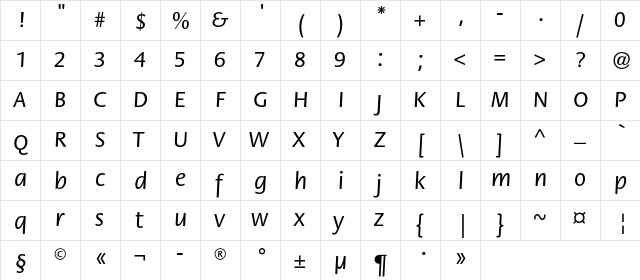
FloraC Regular
Design Context for FloraC Typeface
FloraC takes a measured approach to typography — its balanced proportions and neutral character make it a reliable workhorse for both digital and print work.